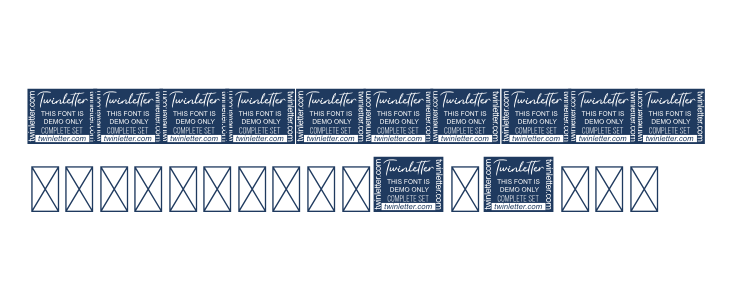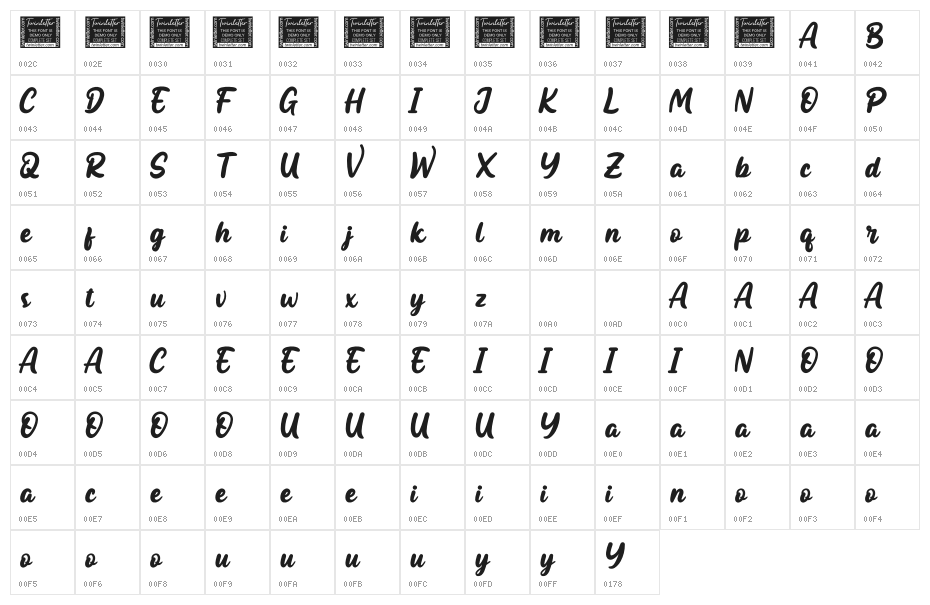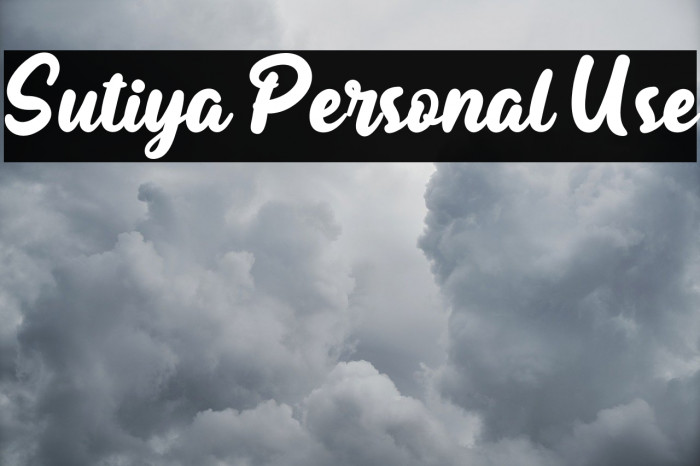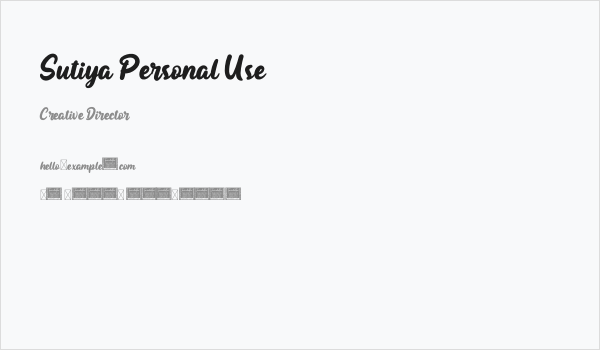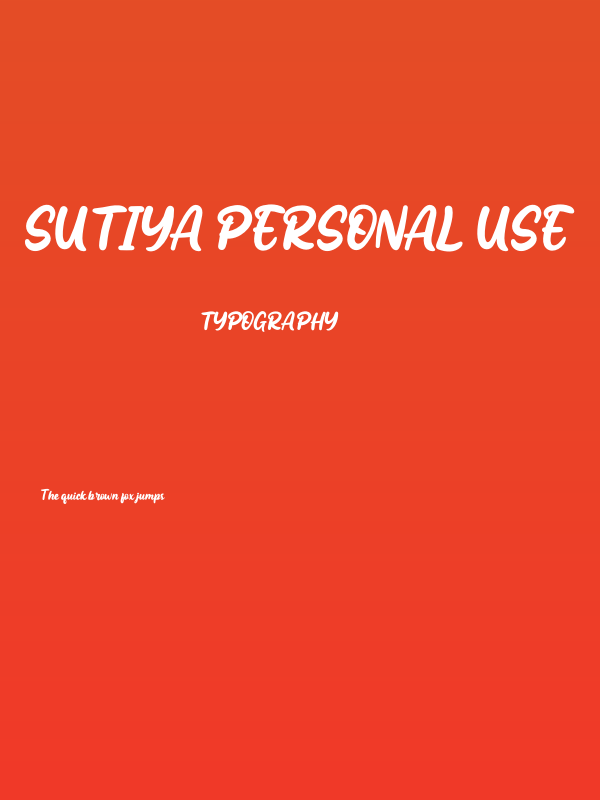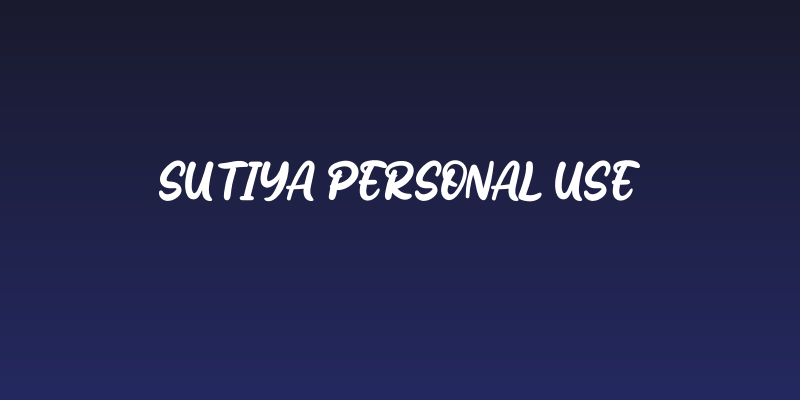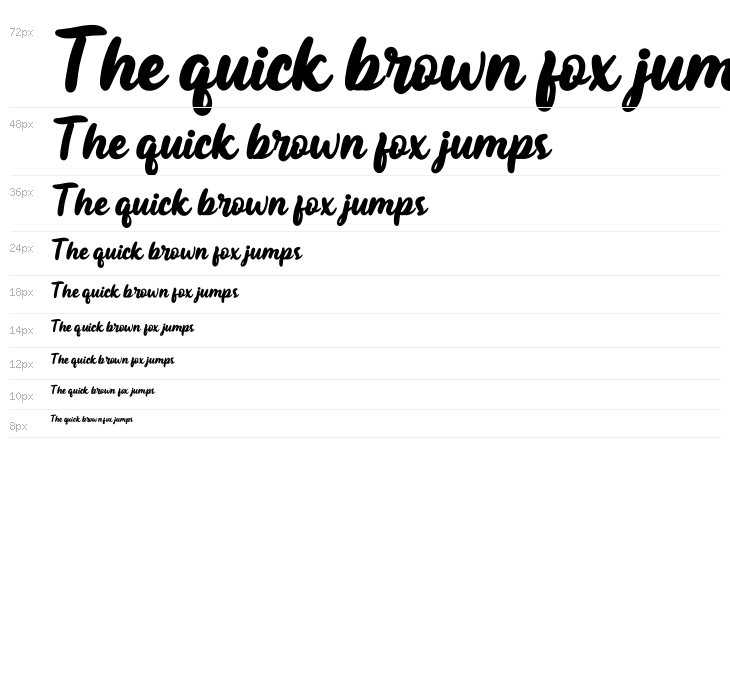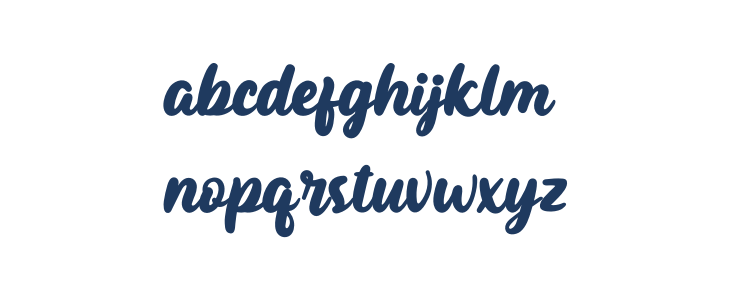
Sutiya Personal Use Font
Sutiya Personal Use Description
This font features a bold and flowing script style, characterized by its smooth, cursive letterforms that convey a sense of elegance and fluidity. The uppercase letters are slightly more structured, maintaining a consistent height and width, while the lowercase letters exhibit a more playful and dynamic appearance with varied ascenders and descenders. The strokes are thick, providing a strong visual impact, and the overall design is cohesive, with each character seamlessly connecting to the next. This font is ideal for creating eye-catching headlines or logos that require a touch of sophistication and flair.
| Overall Style | Elegant, Decorative |
| Proposed Projects | Ideal for wedding invitations, branding projects, logo design, and elegant packaging. |